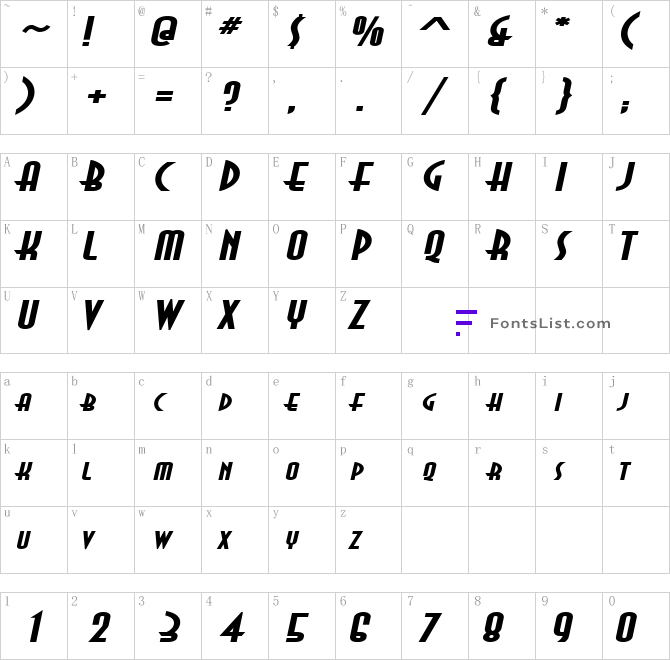
• Font Name:Asia Extended
• Subfamily:BoldItalic
• Full Name:Asia Extended BoldItalic
• Weight:700
Asia-Extended-BoldItalic.ttf is a very beautiful artistic font, Asia-Extended-BoldItalic.ttf is widely used in the design and printing of various books and pictures,Asia-Extended-BoldItalic.ttf has a strong visual impact,Asia-Extended-BoldItalic.ttf is a commonly used font in newspapers, magazines and books, and is used in posters, e-commerce Poster design, store design, logo design, font design and other fields.Asia-Extended-BoldItalic.